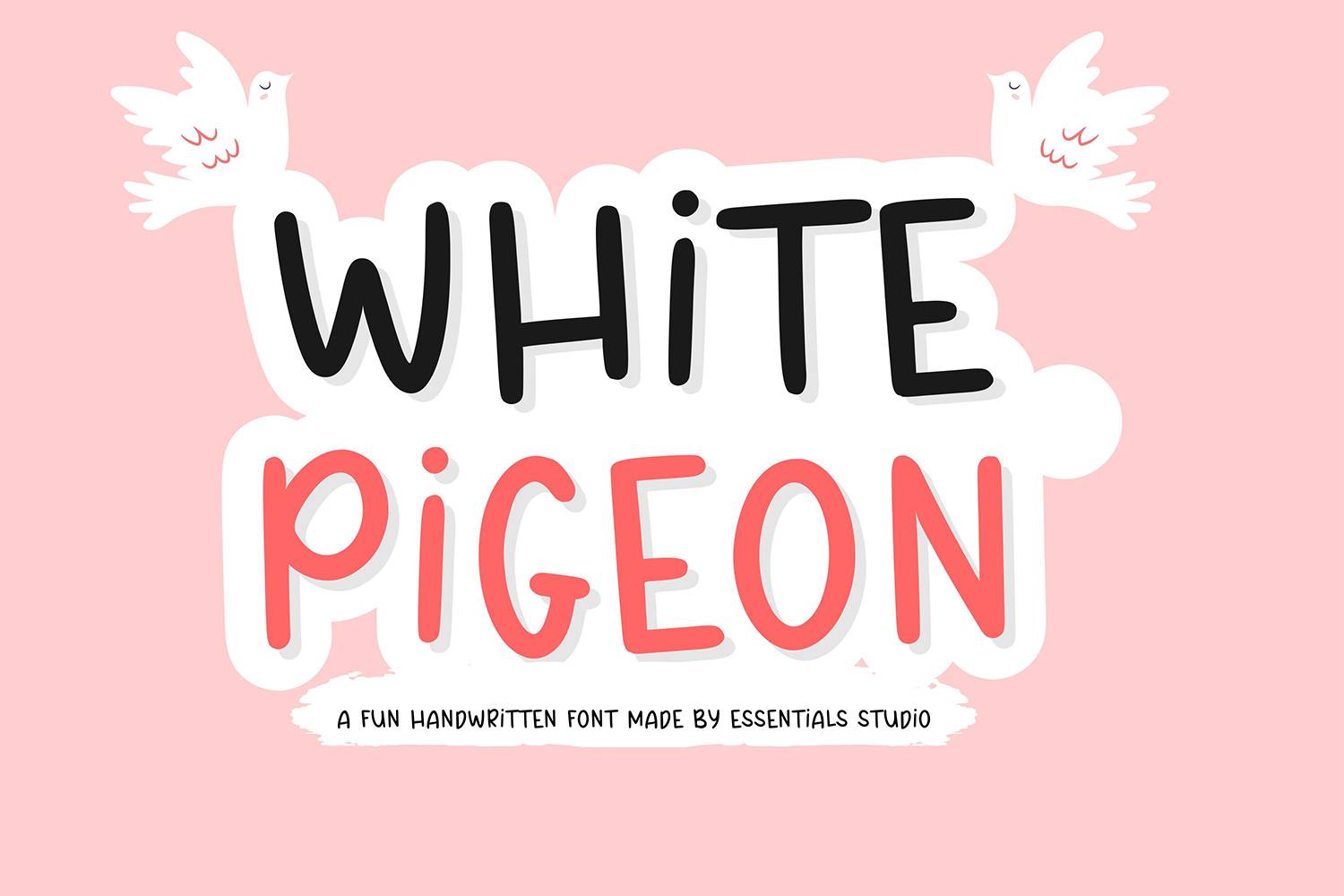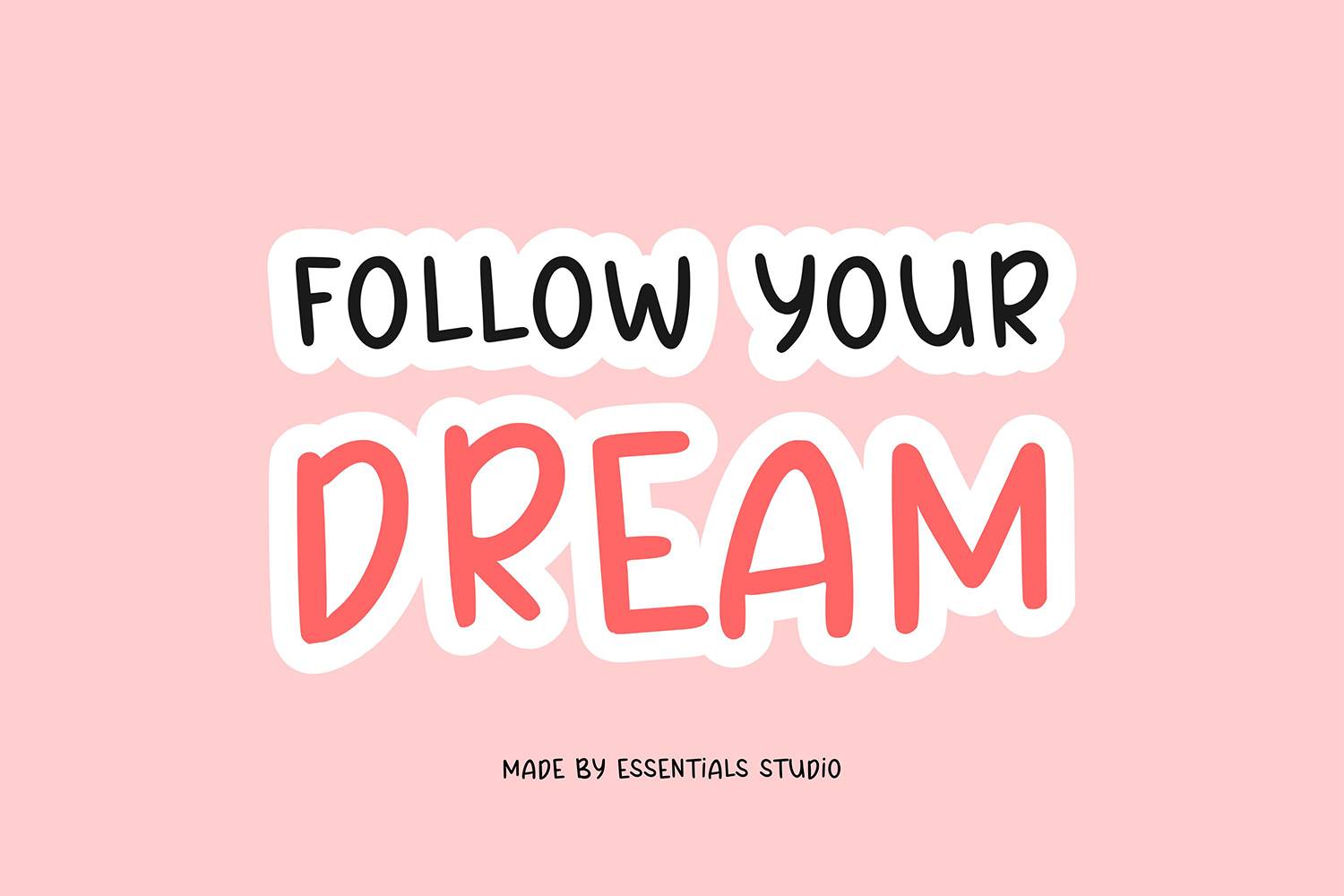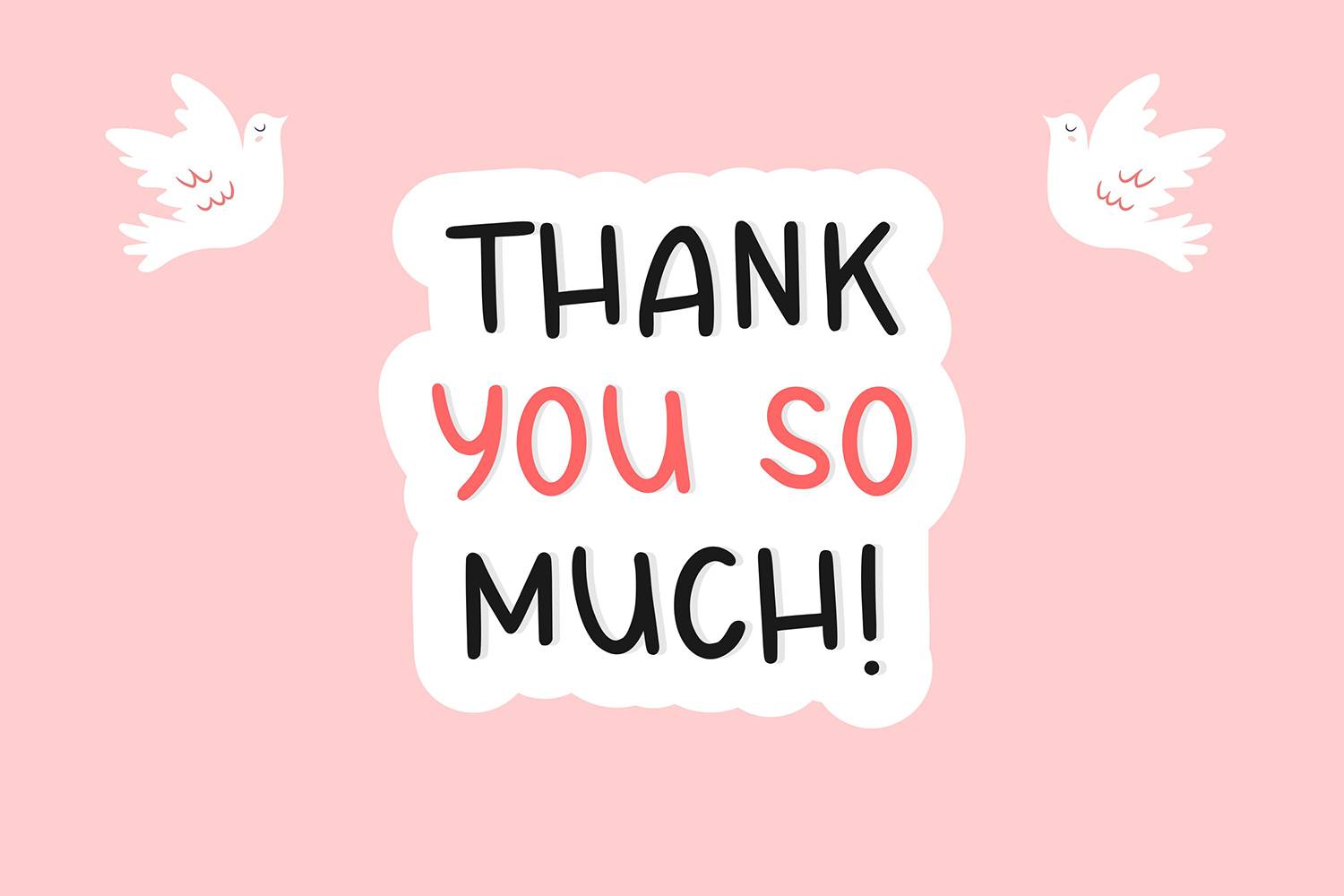
White Pigeon is a playful, casual sans serif font with a hand-drawn feel, featuring rounded, slightly irregular strokes that give it a warm, approachable personality. Its tall x-height and consistent, medium weight make it highly readable, perfect for fun and informal branding, children’s books, or friendly headlines. White Pigeon’s charming style works well wherever a relaxed and inviting tone is needed.
White Pigeon Font
About White Pigeon Font
| Font family | White Pigeon Font |
| Designer | Annas Rifky Anhar |